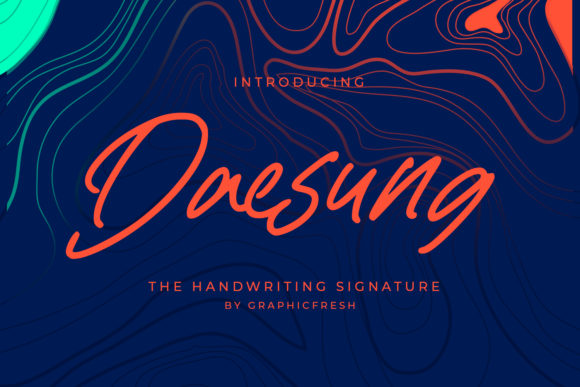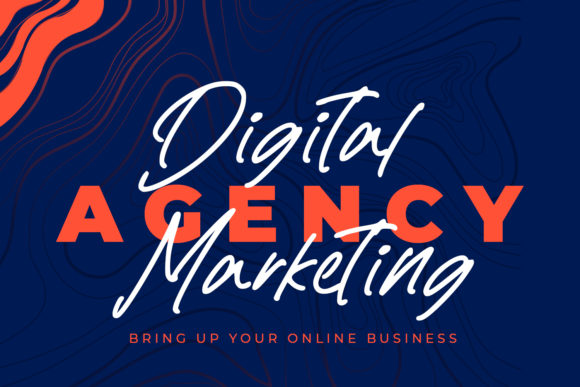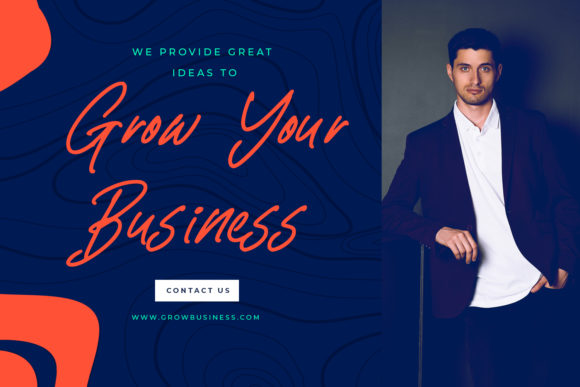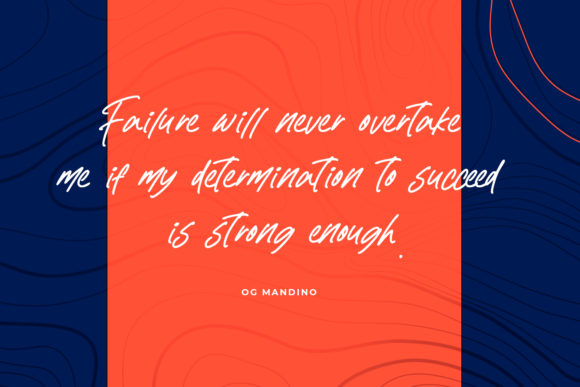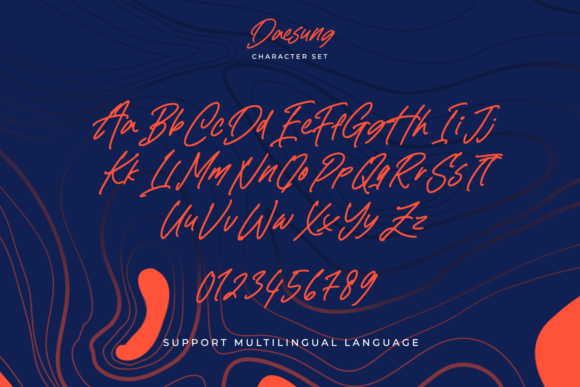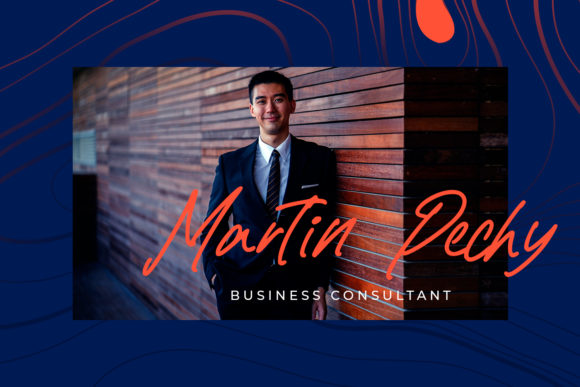
Daesung Font
About Daesung Font
Daesung is a cursive and timeless handwritten font. It is the best choice for creating eye catching logos, branding and quotes. Every letter has a unique and beautiful touch, which will make your design come alive!